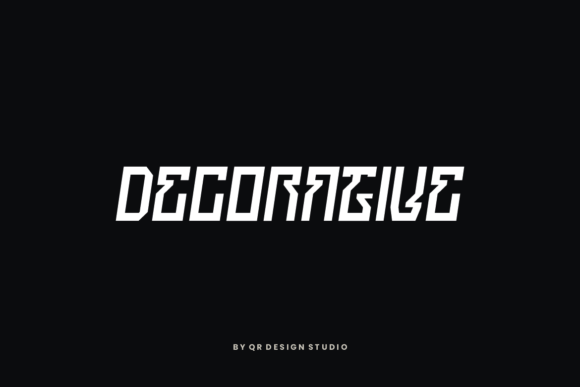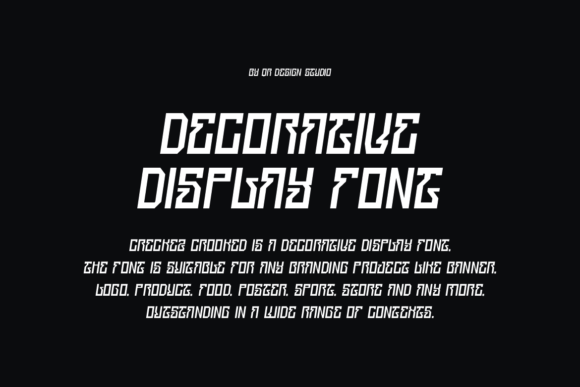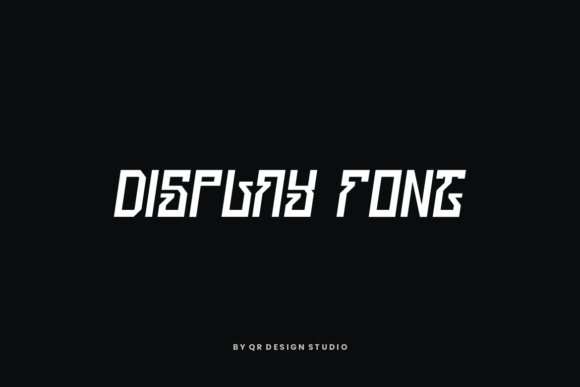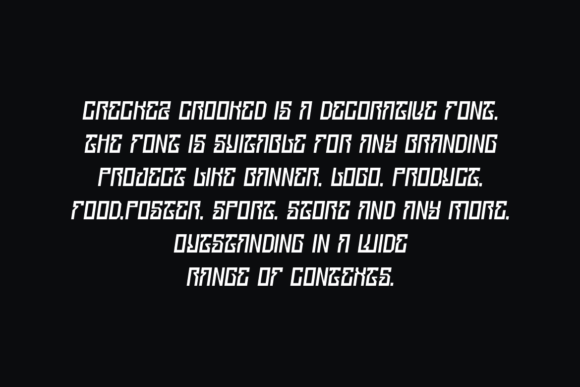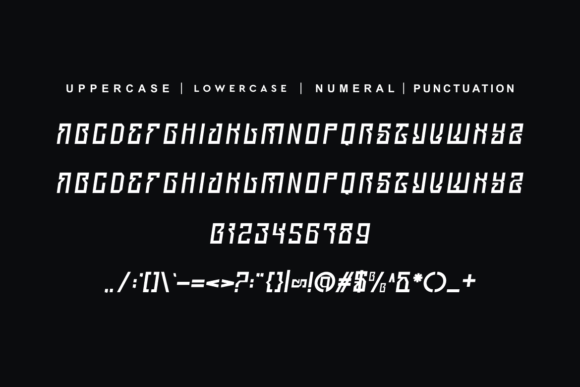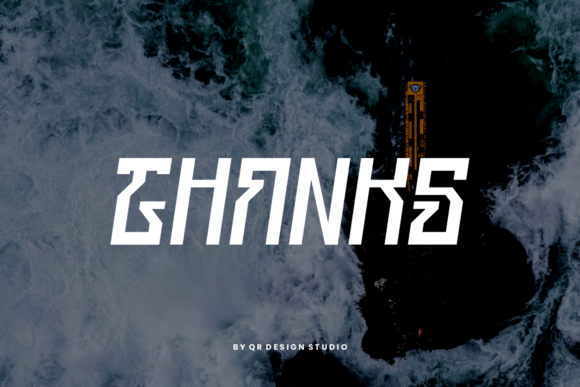
Introduction to Creckez Crooked Font
Creckez Crooked is an incredibly cool and unique decorative font.
It has a modern yet whimsical style and it will undoubtedly immerse your designs into a magical world .
Key Features of Creckez Crooked Font
Why Choose Creckez Crooked Font?
Creckez Crooked Font offers exceptional quality and versatility, making it a valuable addition to your design toolkit. Whether you’re creating for personal projects or commercial use, Creckez Crooked Font delivers professional results.